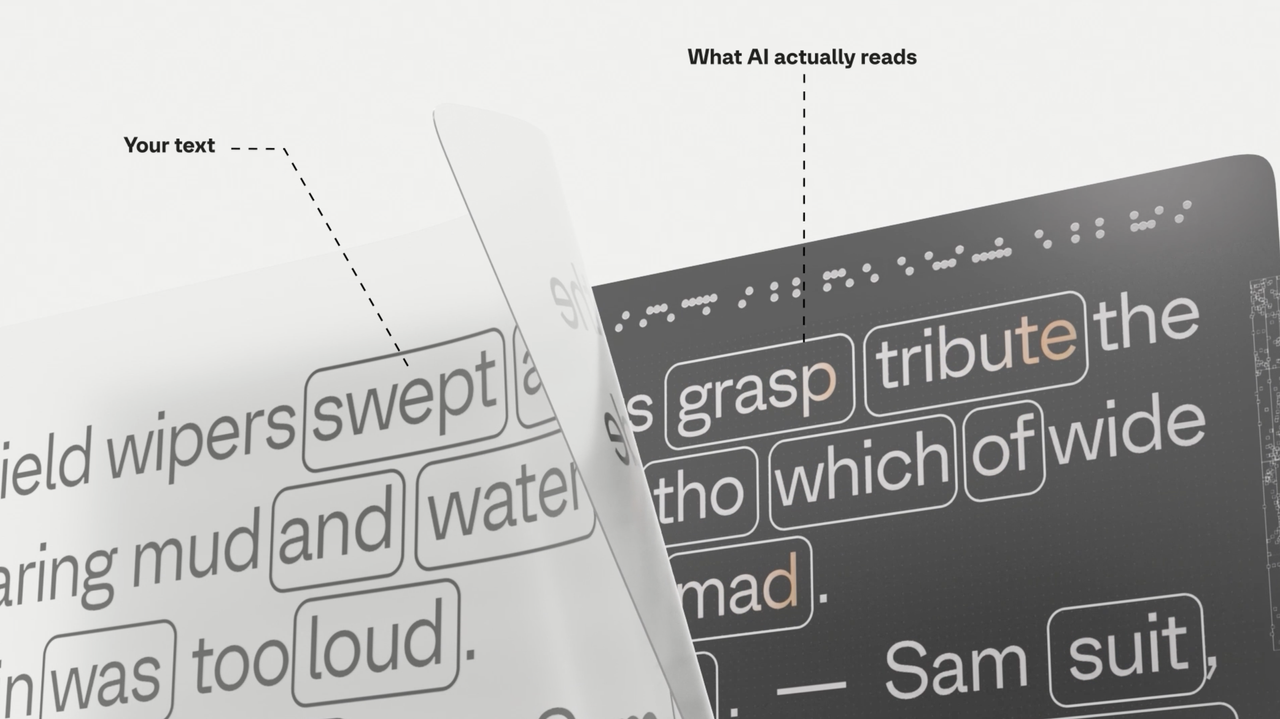
We've seen some creative innovations designed to protect creative work online in the era of AI scraping. Nightshade is a tool that adds a 'poison' to digital art files to pollute datasets when images are used for AI training. Now a type foundry and creative agency have done something comparable for typography, creating a typeface that anyone can use to shield their work.
A couple of weeks ago, we reported on Ghost Font, which uses a kind of optical illusion to prevent AI from reading text. It's a fascinating experiment but has significant limitations. It relies on movement, so it only works as a video or GIF, and there's a high likelihood that AI will come to outsmart it as new models analyse video by optical flow instead of individual frames.
There's also the issue that Ghost Font's noisy static isn't great to look at for any length of time. You're not going to using it to present an entire website, that's for sure. But now a sleeker and more practical solution has just dropped. ShieldFont is a free web font that's highly legible but hides text from AI bots and can contaminate AI datasets – and it's open-source with a toolkit that can be applied to any font.
ShieldFont was created by the Brazilian creative studio Seneda & Abrucio (S&A) and the Copenhagen-based type foundry Playtype. The objective was to create a versatile typeface that looks like regular text to human readers but feeds scrapers altered wording.
Unlike Ghost Font, there's no optical illusion at work. Visually, ShieldFont Optik is an adaptation of PlayType's existing Optik typeface, and it's available in six weights, from Regular to Black.
Jeppe Pendrup, the font’s type designer stressed that "every detail had to serve the human eye, while the hidden system underneath served an entirely different purpose.”
That hidden system works on the premise that while humans read rendered pixels on a screen, most AI mass scrapers read the source code behind them. Using OpenType glyph substitution, it changes select words in the HTML to alter sentences’ original meaning but keeps them grammatically coherent, so they're more likely to pass AI quality filters.
The current release, v18, targets high-frequency English nouns. The typeface's creators say that in controlled testing, 55.8% of shielded passages no longer made the same factual claim as the original, while tests across publicly available scraping pipelines found that ShieldFont content could survive filtering and enter an AI training dataset.
The typeface is intended to address AI developers' ethically dubious practice of scraping content from the public web. Its creators believe that sharing creative work online shouldn't make it fair game for companies to harvest to train their AI.
"ShieldFont is not an anti-AI project," S&A's founders Isaque Seneda and Gabriel Abrucio stress. "We’re simply against the idea that publishing is the same as consenting. We saw how existing opt-out protocols such as robots.txt were being routinely bypassed, so we wanted to create one that could enforce itself. The answer was to turn the content itself into the opt-out."
Isaque and Gabriel say the bigger goal is to "build a web where taking content without asking is no longer consequence-free.”
More than a single typeface, ShieldFont provides a collective approach to protecting human work. Besides the modified Optik, the project includes a toolkit that anyone can use to shield their own typeface.
“Typography has always helped humanity preserve and share its ideas. Now it can help protect them too. That is why ShieldFont had to be open source, so its system can grow beyond Optik and become part of many different typefaces,” says Daniél Andreasen, CEO of Playtype.
ShieldFont creators stress that it's "not unbreakable" and won't stop a very determined scraper. Someone specifically targeting a single website could inspect the font and reverse the mapping. Nevertheless, the tool should be able to slow down mass scraping and at least make it harder, more costly and less risk free since scrapers can't know in advance whether a site uses ShieldFont, or which mapping it uses.